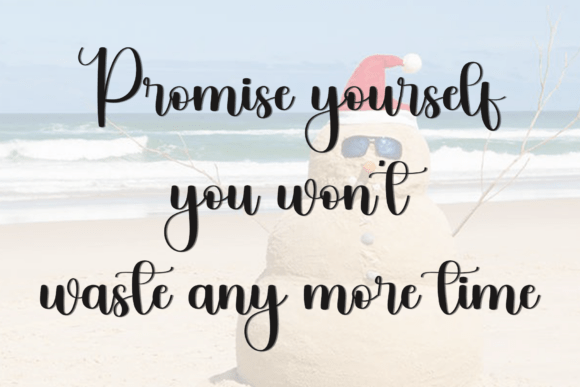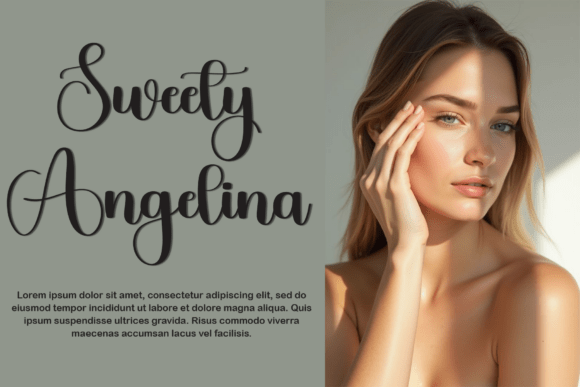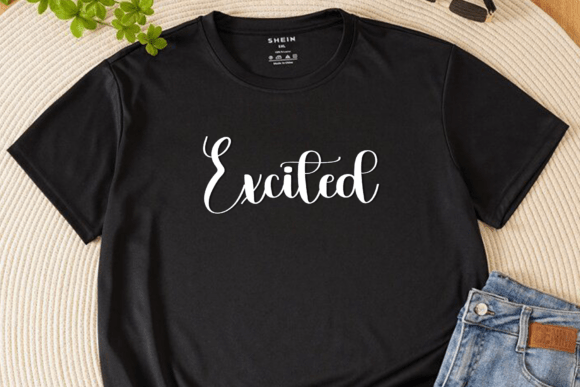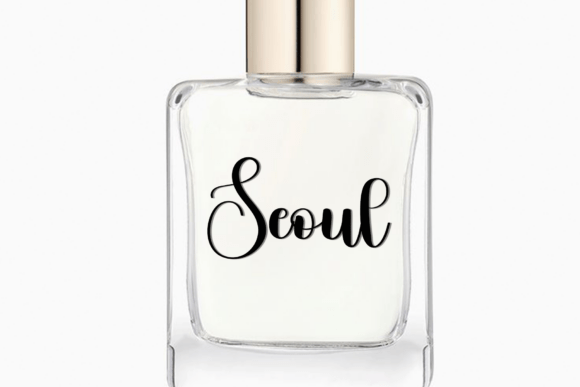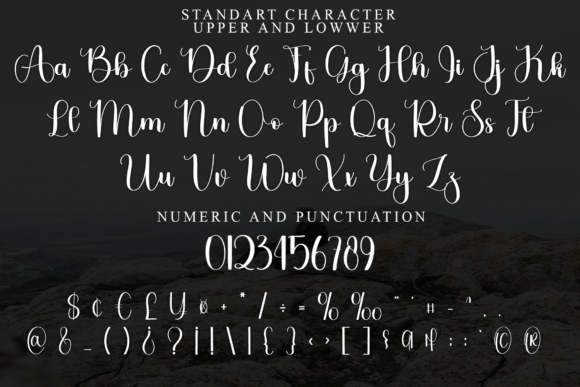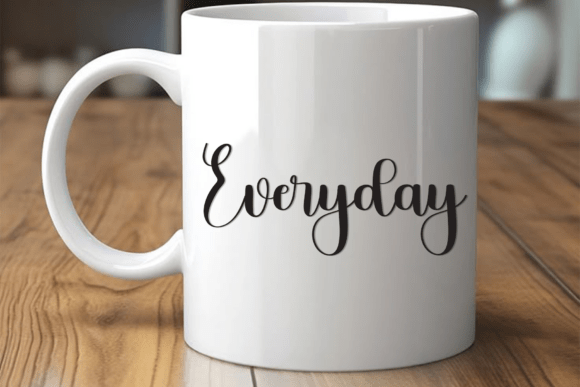
Betterly Font: Add a Touch of Holiday Magic to Your Designs
The holiday season is upon us, and what better way to get into the spirit than with a festive and merry typeface? Look no further than the Betterly Font, a decorative and whimsical font that’s perfect for adding a touch of enchantment to your designs. Whether you’re creating greeting cards, gift tags, or holiday-themed projects, Betterly Font is the perfect choice to bring a cheerful and nostalgic ambiance to your words.
What Makes Betterly Font So Special?
Betterly Font is a unique and eye-catching typeface that’s specifically designed to capture the spirit of the holiday season. Its decorative elements and whimsical flair make it stand out from more traditional fonts, adding a touch of magic to any design. With Betterly Font, you can create holiday-themed projects that are sure to delight and impress.
Betterly Font is perfect for a wide range of holiday projects, including:
• Greeting cards: Create beautiful and festive greeting cards that will make your loved ones feel special.
• Gift tags: Add a personal touch to your gifts with custom gift tags that feature the Betterly Font.
• Holiday-themed projects: From invitations to party decorations, Betterly Font is the perfect choice for any holiday-themed project.
One of the best things about Betterly Font is that it’s PUA encoded, which means you can access all of the amazing glyphs and ligatures with ease. This makes it simple to create beautiful and intricate designs that will make your projects stand out.
Why Choose Betterly Font?
So why choose Betterly Font for your holiday projects? Here are just a few reasons:
• Unique and eye-catching design: Betterly Font is a one-of-a-kind typeface that’s sure to grab attention.
• Festive and merry vibe: This font is specifically designed to capture the spirit of the holiday season.
• Easy to use: With PUA encoding, you can access all of the glyphs and ligatures with ease.
• Perfect for a wide range of projects: From greeting cards to gift tags, Betterly Font is versatile and easy to use.
Tips for Using Betterly Font
Here are a few tips for getting the most out of Betterly Font:
• Experiment with different colors and textures: Betterly Font looks great in a wide range of colors and textures, so don’t be afraid to get creative.
• Pair with other festive fonts: Combine Betterly Font with other festive fonts for a unique and eye-catching look.
• Use for headlines and titles: Betterly Font is perfect for headlines and titles, where its decorative elements can really shine.
If you’re looking for a festive and merry typeface to add a touch of holiday magic to your designs, look no further than Betterly Font. With its decorative elements, whimsical flair, and PUA encoding, this font is perfect for creating holiday-themed projects that are sure to delight and impress. So why wait? Download Betterly Font today and let your typography shine with the magic of the holiday season!
Whether you’re a designer, crafter, or DIY enthusiast, Betterly Font is the perfect choice for anyone looking to add a touch of holiday cheer to their projects. So go ahead, get creative, and let the magic of Betterly Font bring your designs to life!